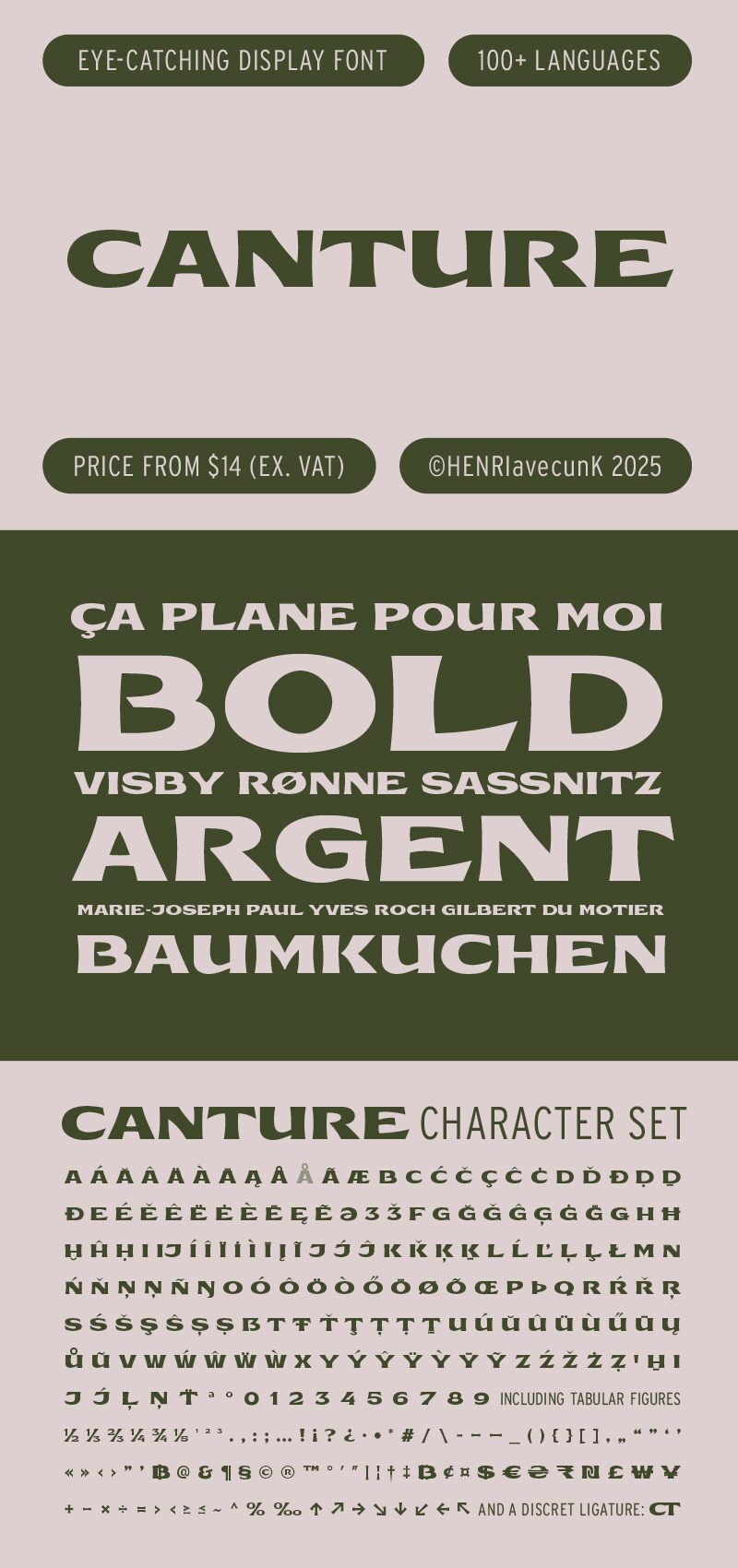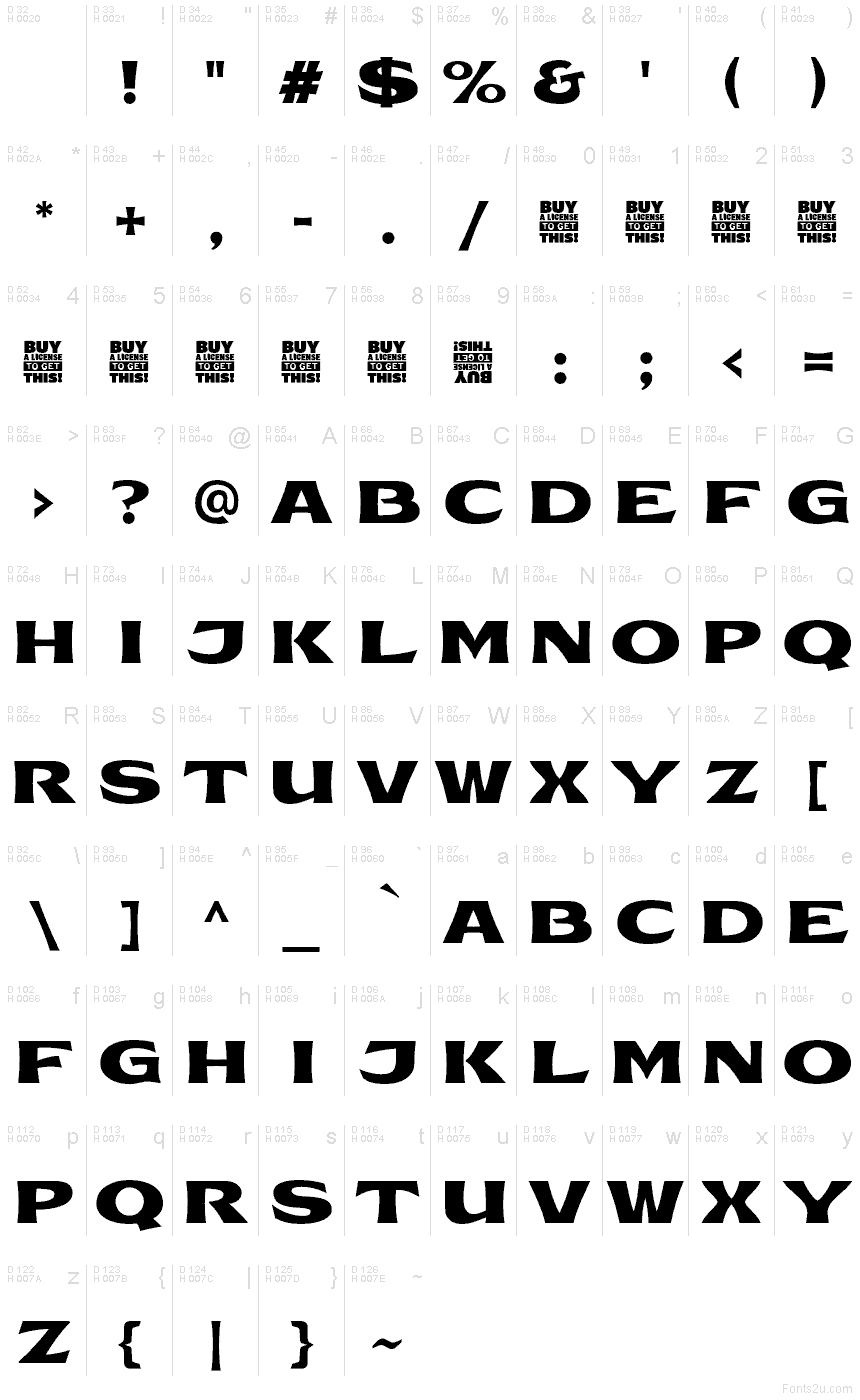
Canture
Canture font by HENRIavecunK Type Co is a free serif typeface with a bold, sculpted presence that feels almost carved from ink. The letters swell and taper with a chiseled, brush-cut energy, giving words a sense of movement even when they stand still. Sharp flared edges and dense, blocky interiors create a dramatic rhythm that grabs attention without slipping into chaos. It’s a serif that feels both ancient and theatrical, like a title etched onto stone.
Using Canture, headlines come out loud, textured, and unforgettable, making this free font a natural fit for posters, book covers, album art, branding for craft or heritage products, theater promotions, and bold editorial spreads. The tight, compact spacing lets you set large titles that feel solid and weighty, even in narrow layouts. For a simple pairing, match Canture with a clean, neutral sans serif in smaller text to let these expressive letterforms do the heavy lifting.